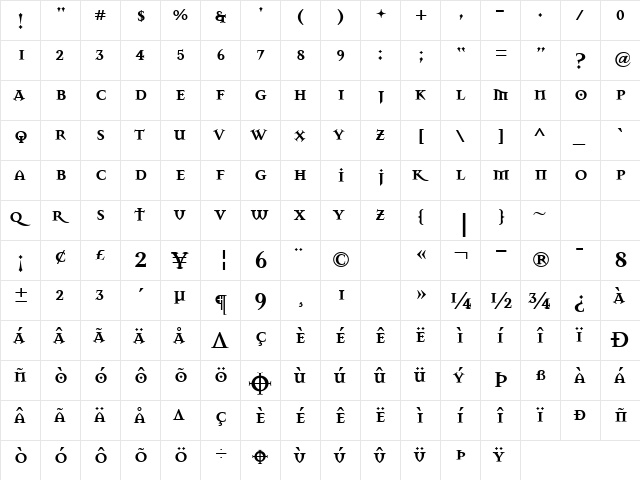
Crusader Dark Font Preview
Crusader Dark
Design Context for Crusader Typeface
Crusader is a composed and adaptable typeface that performs quietly and consistently across a wide range of design contexts.